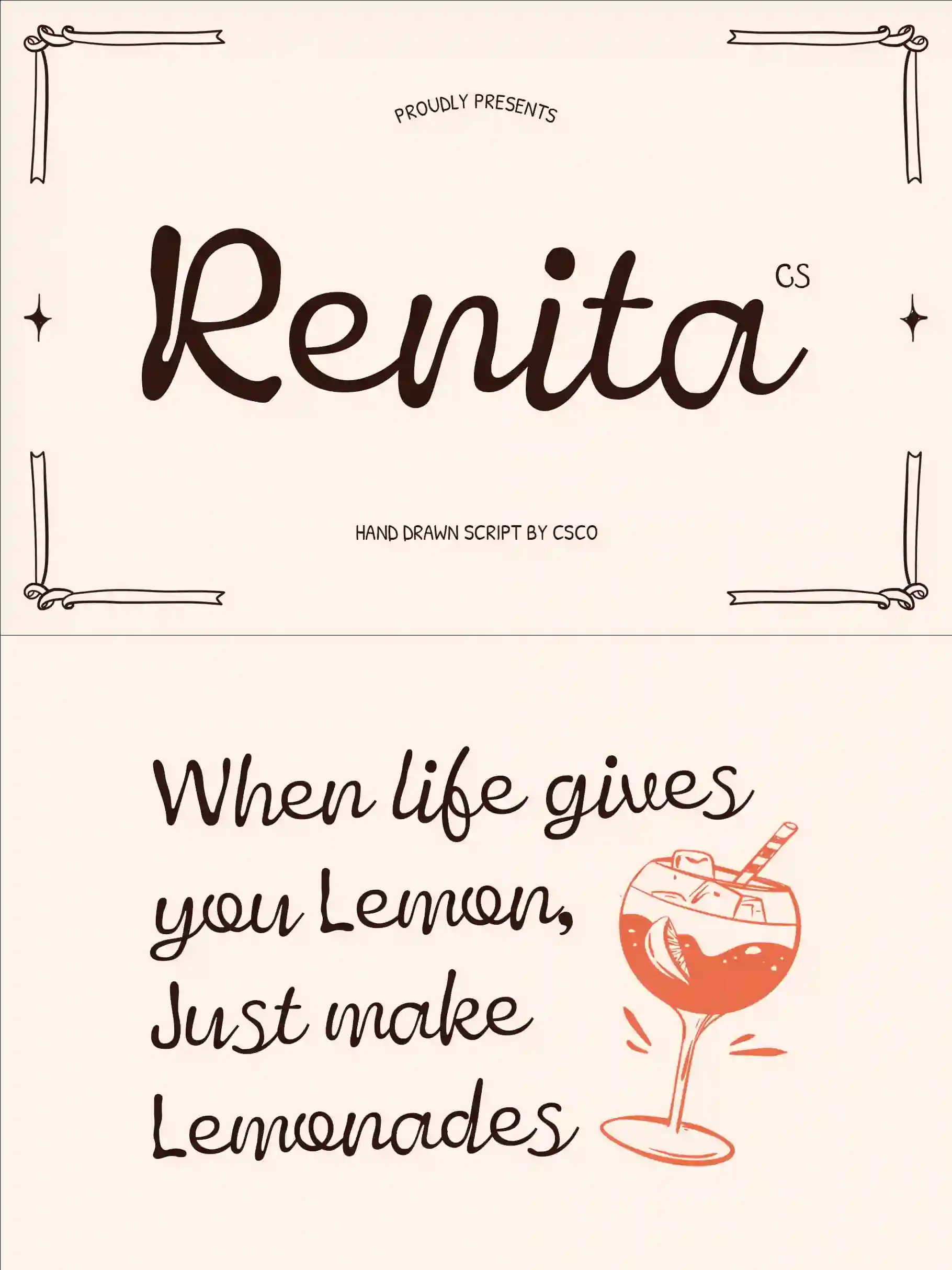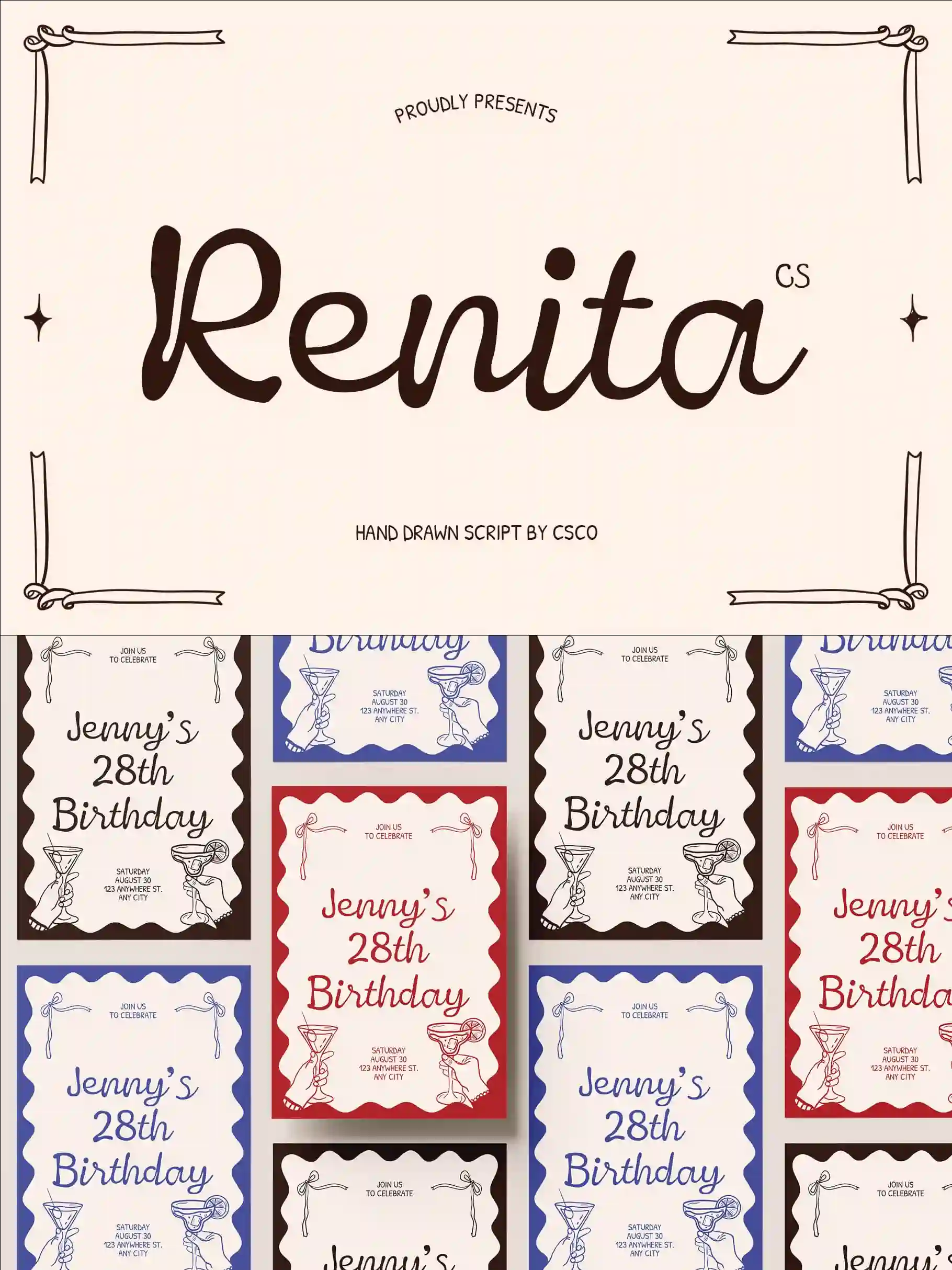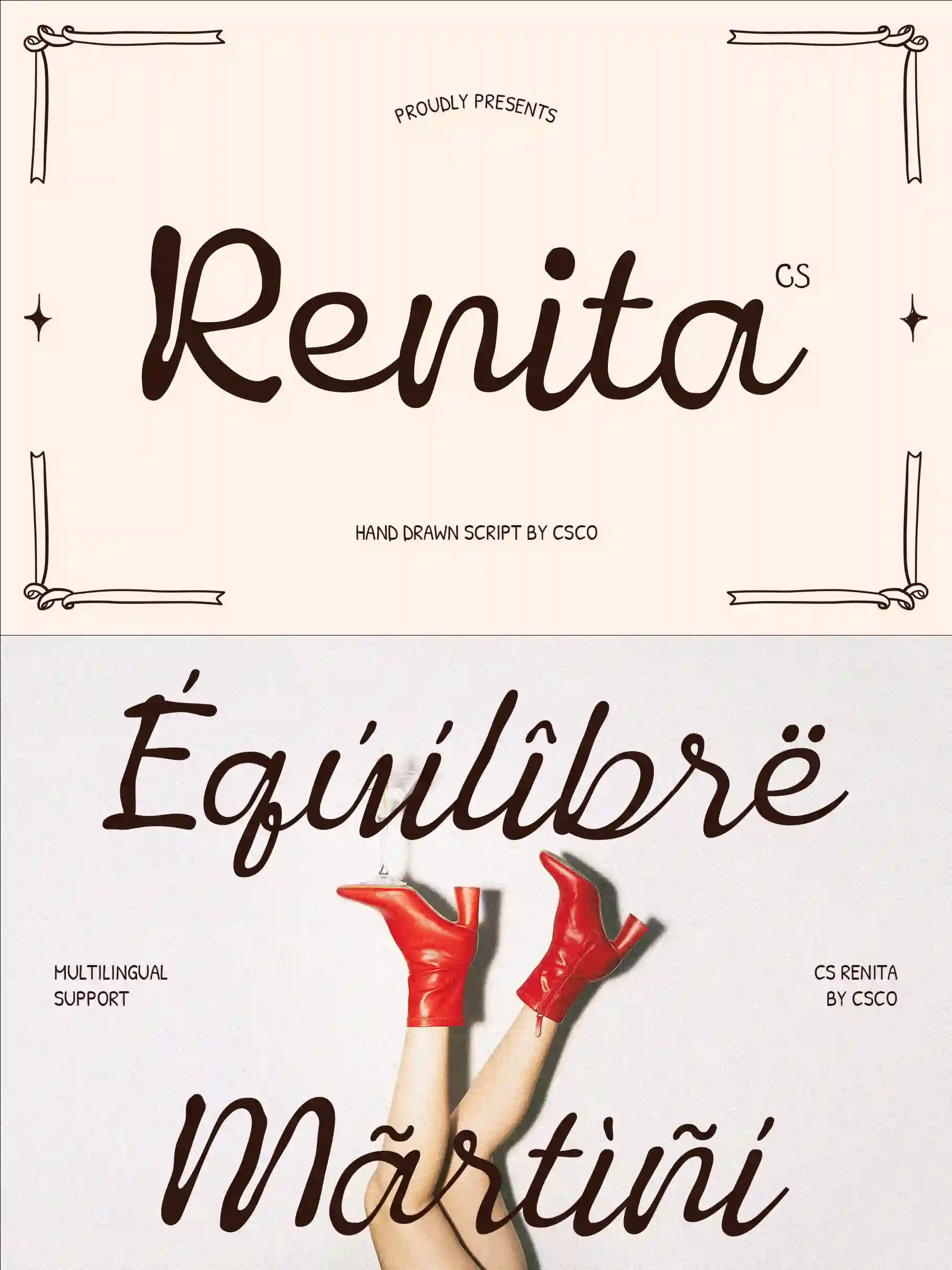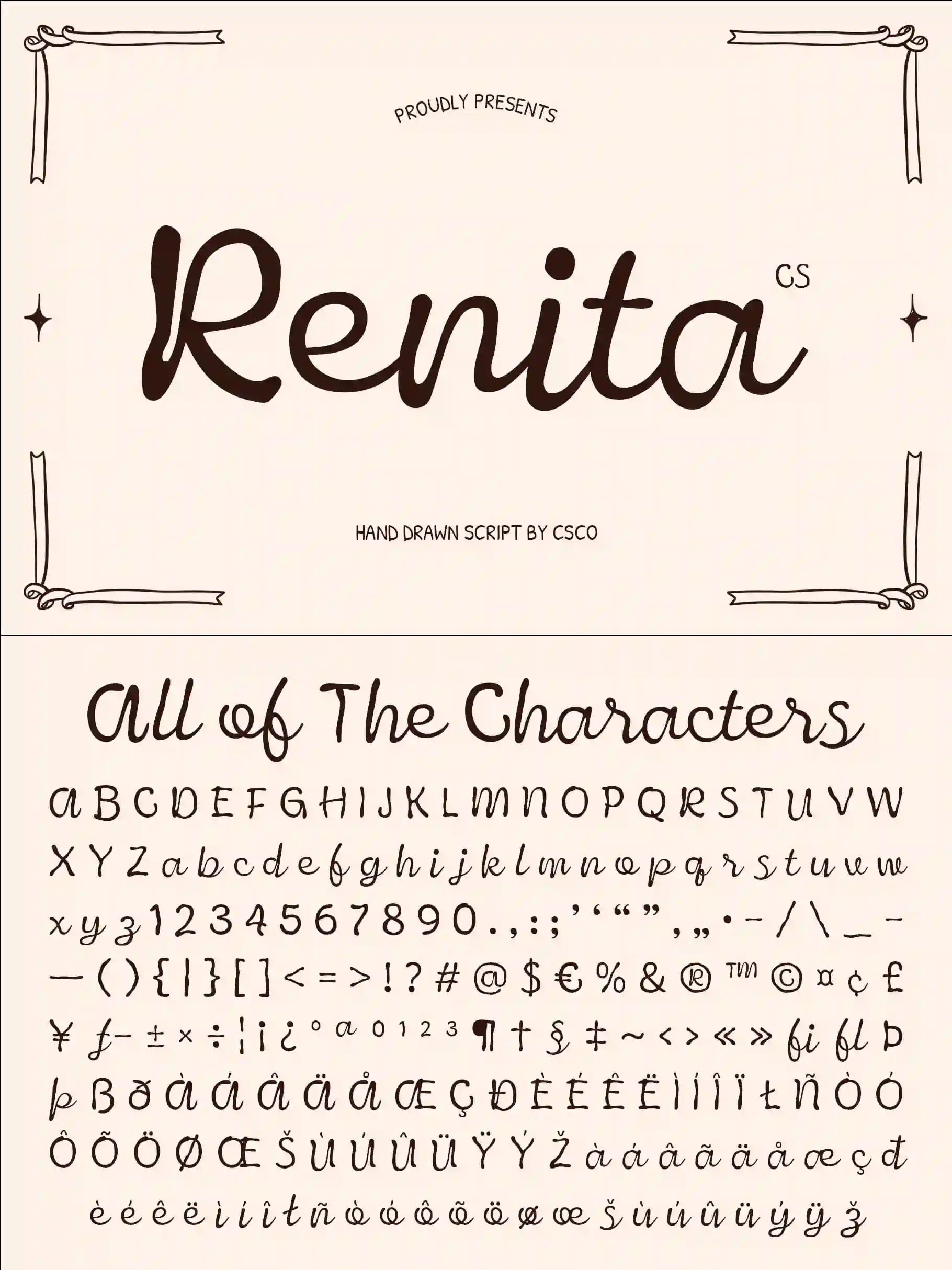
CS Renita – Script Font with Graceful Elegance
Flowing Script Font with Handwritten Charm
Graceful and Sophisticated Design
CS Renita is a script font that embodies elegance through its flowing strokes and graceful curves. Inspired by the beauty of natural handwriting, it adds a personal yet refined touch to any project. Its fluid form creates a sense of movement and sophistication, making it perfect for designs that require charm and style.
Handwritten Curves with Luxury Appeal
Each letter in CS Renita carries characteristic curves that mimic authentic penmanship. The smooth, connected lines evoke artistry and refinement, giving your typography a luxurious appearance. This handwritten quality ensures your designs feel warm, personal, and sophisticated at the same time.